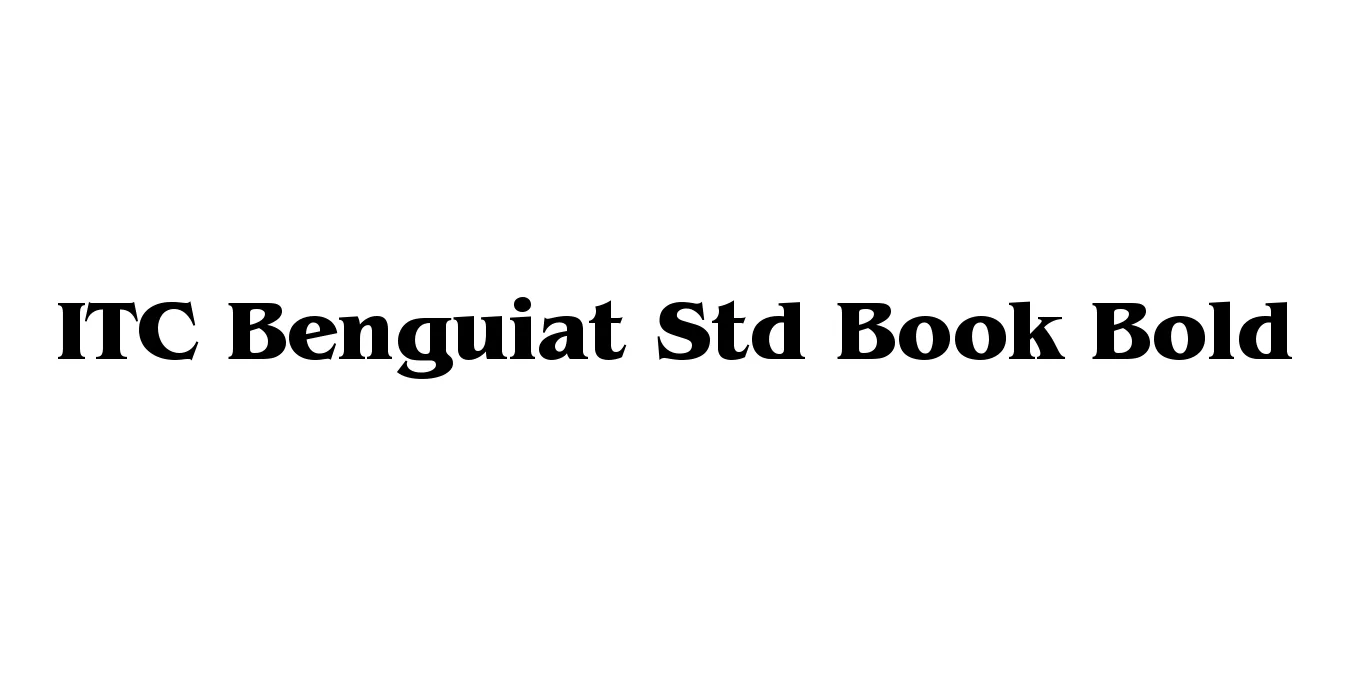
ITC Benguiat Std Book Bold
Designed by Edward Benguiat
| Category | Serif / Decorative |
| Designer | Edward Benguiat |
| Similar Fonts | ITC Korinna, Souvenir, Windlass, Windsor |
ITC Benguiat was designed by the prolific type designer Ed Benguiat and released by the International Typeface Corporation in 1978. Drawing heavy inspiration from the Art Nouveau movement, the typeface features a high x-height and distinctively curvy, organic strokes. The Book Bold weight specifically offers a robust presence that maintains the elegant, flowing characteristic of the original design while providing the necessary visual weight for high-impact display work.
This typeface reached iconic status during the 1980s, becoming synonymous with the era's literary and cinematic landscape. It is famously associated with the cover art of Stephen King novels and enjoyed a massive modern resurgence as the primary branding font for the Netflix series Stranger Things. Its unique blend of vintage flair and structural clarity makes it one of the most recognizable serif fonts in history.
ITC Benguiat Std Book Bold Best Uses
Highly effective for fantasy and horror genre literature.
Ideal for vintage-inspired and atmospheric branding projects.
Perfect for cinematic title sequences and high-impact headlines.
Great for magazine mastheads and pull quotes that require personality.